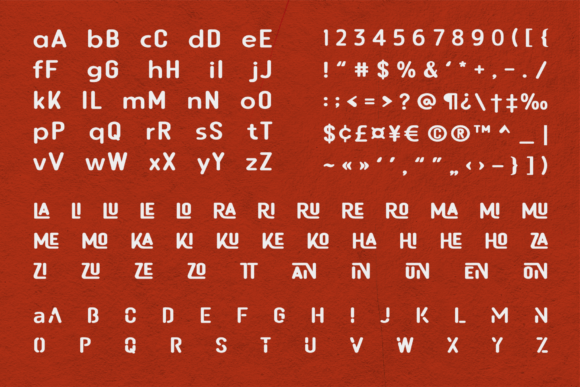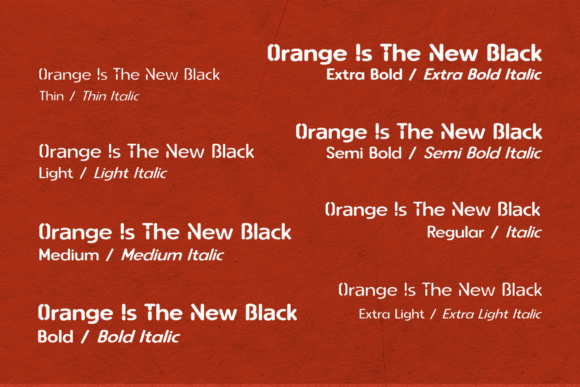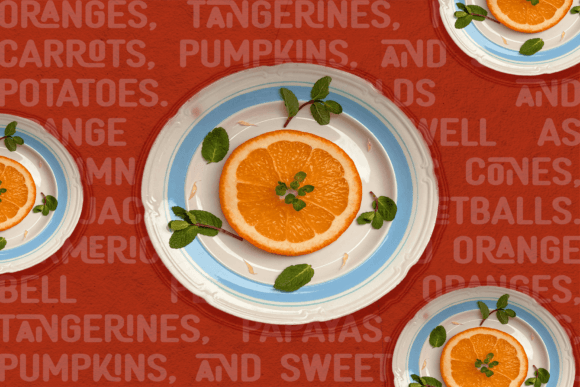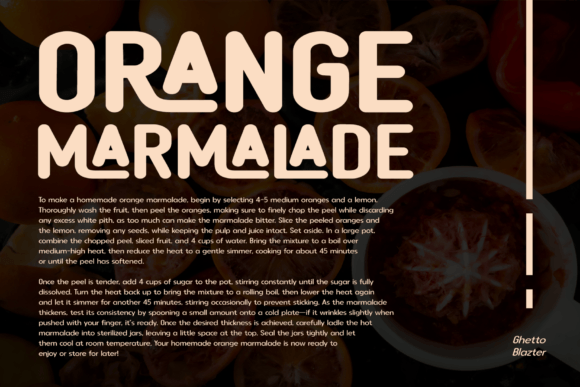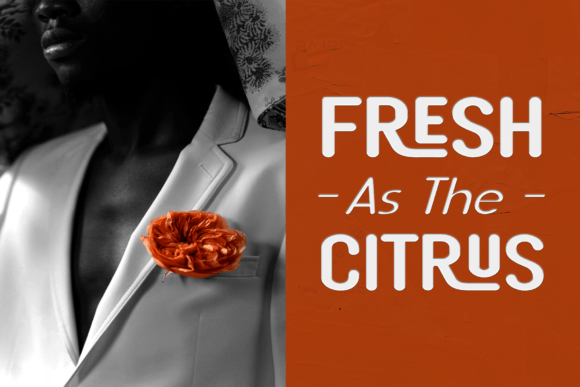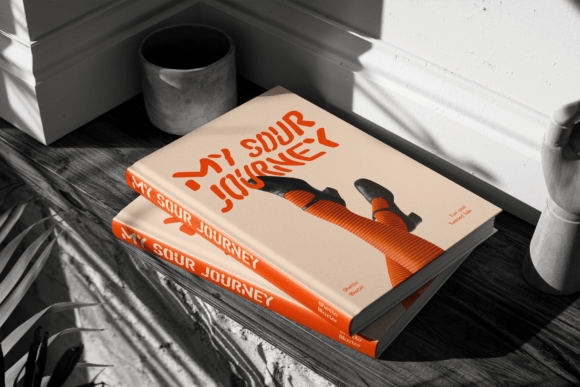
Ghetto Blazter Font: Elevate Your Designs with Urban Flair
In the world of typography, fonts play a crucial role in conveying the tone and personality of a design project. For designers and crafters looking to add a touch of urban flair to their work, the Ghetto Blazter font is an excellent choice. This versatile sans-serif font seamlessly blends modern aesthetics with a hint of edginess, making it perfect for a wide range of design applications.
The Unique Features of Ghetto Blazter
Ghetto Blazter’s design is characterized by its rounded corners and dynamic letterforms, which create a friendly and approachable atmosphere. This distinctive feature sets it apart from other fonts and makes it an excellent choice for designers looking to add a touch of personality to their work. The font’s rounded corners soften its appearance, making it more inviting and approachable, while its clean lines and contemporary design ensure that it remains relevant in modern design trends.
Interlocking Words and Endless Customization
One of the standout features of Ghetto Blazter is its ability to interlock words, creating visually interesting and dynamic compositions. This unique feature allows designers to experiment with different layouts and arrangements, adding an extra layer of creativity to their work. With a vast array of alternates and ligatures, the possibilities for customization are endless. Whether you’re working on a branding project, packaging design, or digital media, Ghetto Blazter provides the flexibility to create unique and eye-catching designs.
Ghetto Blazter’s versatility makes it an excellent choice for a wide range of design projects. Its modern aesthetics and urban flair make it perfect for:
- Branding and logo design: Create a bold and memorable brand identity with Ghetto Blazter’s unique letterforms and interlocking words.
- Packaging design: Add a touch of urban flair to your packaging designs and make your products stand out on store shelves.
- Digital media: Use Ghetto Blazter to create engaging and dynamic digital content, such as social media graphics, blog posts, and website headers.
- Advertising and marketing materials: Make a bold statement with Ghetto Blazter’s eye-catching letterforms and interlocking words.
Why Choose Ghetto Blazter?
With so many fonts available, why choose Ghetto Blazter? Here are just a few reasons why designers and crafters love this versatile font:
- Unique and eye-catching design: Ghetto Blazter’s rounded corners and dynamic letterforms create a friendly and approachable atmosphere that’s sure to grab attention.
- Endless customization options: With a vast array of alternates and ligatures, you can experiment with different layouts and arrangements to create truly unique designs.
- Versatility: Ghetto Blazter is perfect for a wide range of design projects, from branding and packaging to digital media and advertising.
- Modern and relevant: The font’s clean lines and contemporary design ensure that it remains relevant in modern design trends.
In conclusion, Ghetto Blazter is a versatile and eye-catching font that’s perfect for designers and crafters looking to add a touch of urban flair to their work. Its unique features, endless customization options, and versatility make it an excellent choice for a wide range of design projects. Whether you’re working on branding, packaging, digital media, or advertising, Ghetto Blazter is sure to elevate your designs and make them stand out from the crowd.